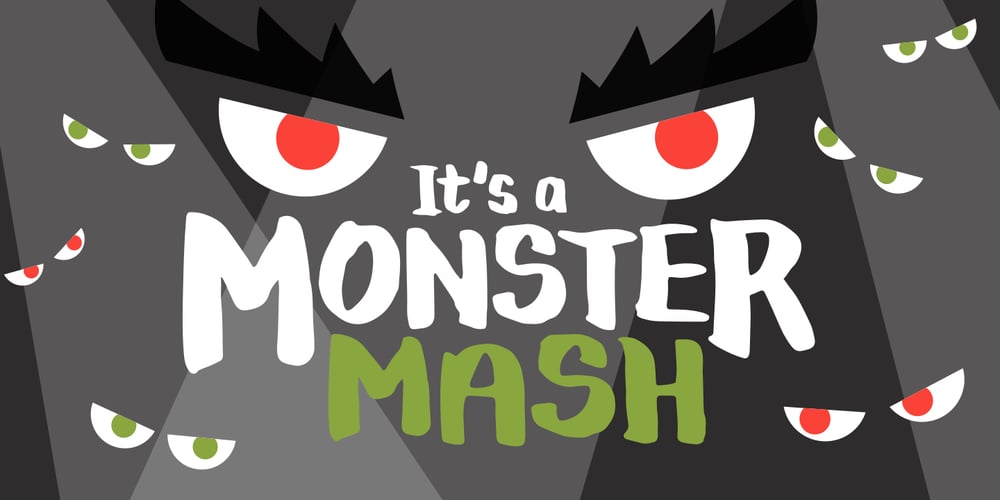
Oggie Marker Font Family was designed by Ming Ong and published by Dear Sue. Oggie Marker contains 1 styles and family package options. Oggie Marker is a hand drawn thick marker display font with a textured edge. It has a raw but whimsical feel, which makes it perfect for posters, signage, menus, comics and toys/ product/ packaging for kids. Try it on themes of summer, Halloween, camping/ outdoors, and more!